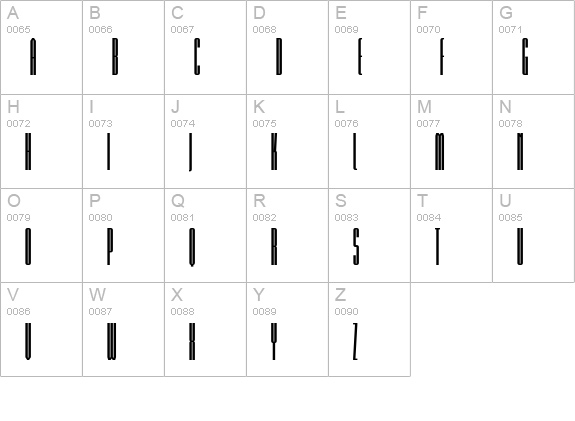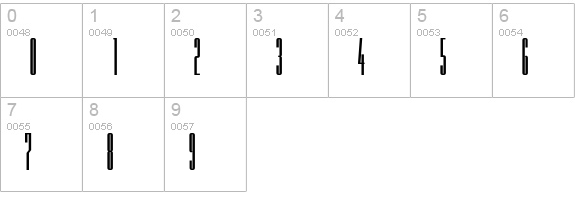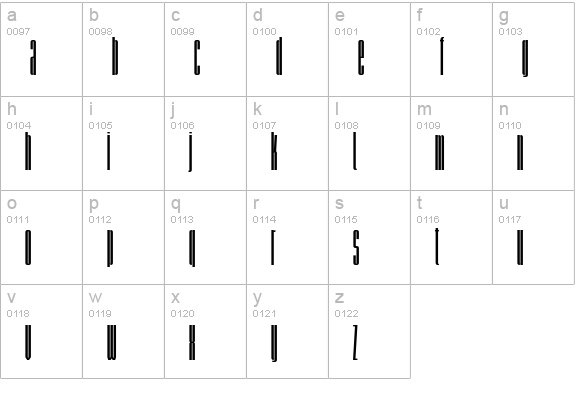
Briem Akademi Std Black Compressed is a maximum-weight, dramatic, condensed-width variant in the Briem typeface family \xE2\x80\x94 well suited to maximum-impact headlines, posters, and packaging.
Briem Akademi Std Black Compressed font is a bold and impactful typeface that exudes confidence and modernity. Its sleek design and compressed style make it perfect for creating eye-catching headlines and attention-grabbing titles. The sharp edges and clean lines of this font give it a professional and polished look that is sure to make your designs stand out. What's even better is that Briem Akademi Std Black Compressed font is available for free download at FontsMarket.com. This means you can easily access this versatile and stylish font to enhance your projects without any cost. Whether you're working on branding, advertising, or any other creative endeavor, this font will add a touch of sophistication and flair to your work. Don't miss out on the opportunity to elevate your designs with this stunning typeface, now available for free at FontsMarket.com.